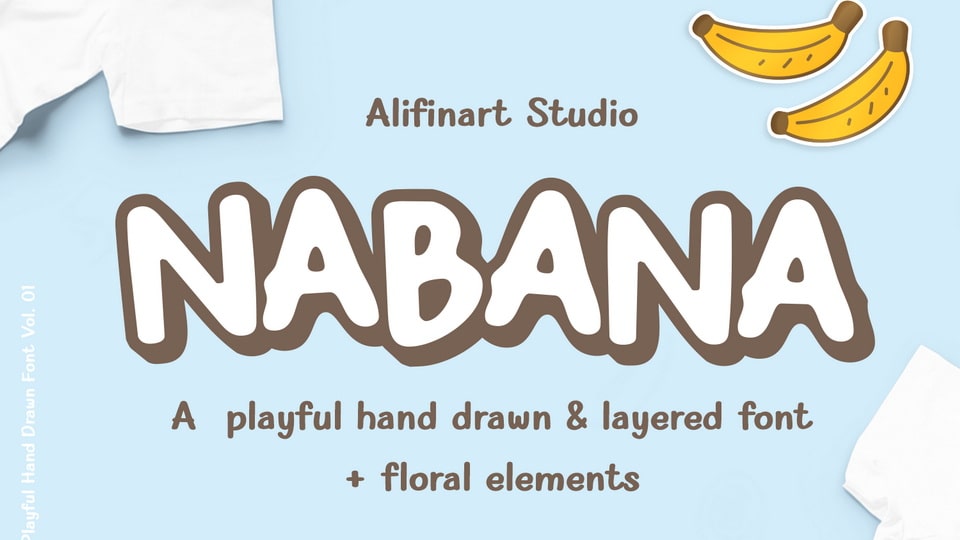
Download Nabana font, a quotable sans serif typeface that offers a relaxed, comfortable and informal feel. Nabana font is inspired by the packaging of environmentally friendly products, as well as from book covers for children.